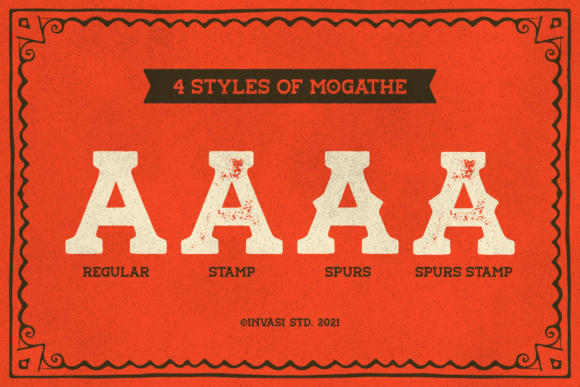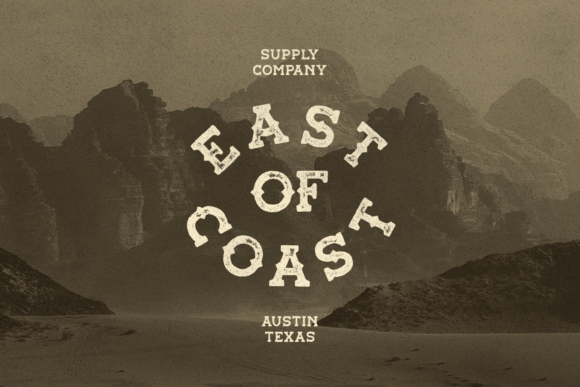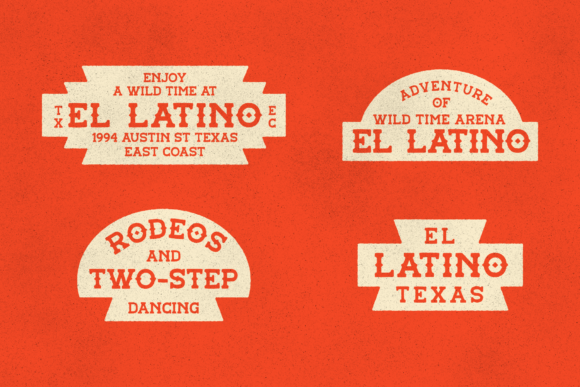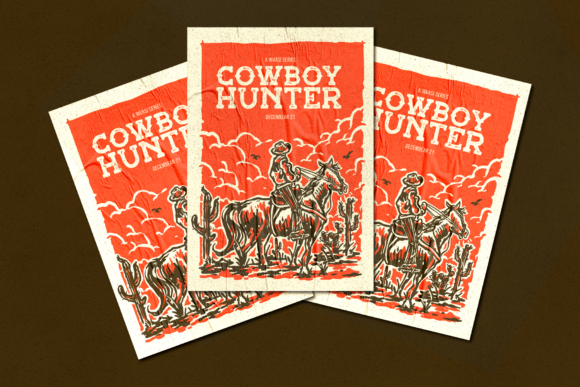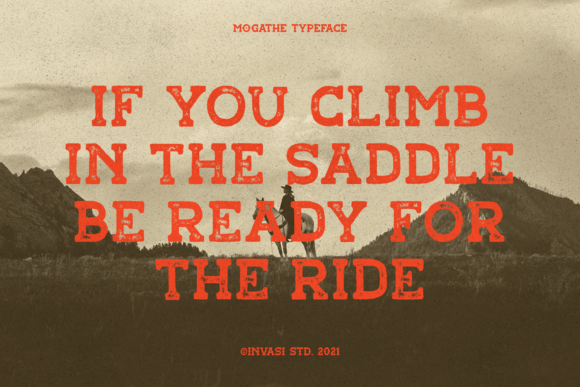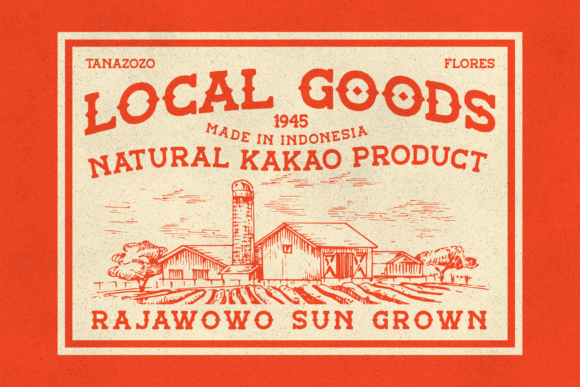
Introduction to Mogathe Font
Have you ever stumbled upon a dusty old book in a thrift store, and as you flip through its yellowed pages, you’re transported to a bygone era? That’s exactly the feeling you’ll get when you add the Mogathe Font to your design project.
This western slab serif font is a masterclass in evoking the spirit of the Wild West. Its vintage look and feel will transport your audience to a time of cowboys, outlaws, and rugged individualism. With its high-quality design, you can trust that the Mogathe Font will be a valuable addition to any creative project.
Key Features of Mogathe Font
- High-quality font designed for creative projects, perfect for designers looking for a unique design resource.
- Unique, modern design aesthetic, making it an excellent addition to any creative project.
Honest Review: Mogathe Font
I recently had the chance to work with the Mogathe Font and I must say it’s a fantastic addition to any designer’s toolkit. As a high-quality font, it’s perfect for creative projects that require a unique touch.
- ✨ High-quality design: The Mogathe Font boasts a crisp and clean design that makes it perfect for both digital and print projects.
However, I did notice a few limitations ⚠️:
- ⚠️ Limited character set: The font only includes a basic character set, which may limit its use in certain creative projects.
- ⚠️ Not ideal for small text: Due to its elegant design, the Mogathe Font may not be the best choice for small text or body copy.
Overall, I’m impressed with the Mogathe Font and would definitely recommend it as a design resource for any creative project. While it may have some limitations, its high-quality design and free download make it a great addition to any designer’s toolkit.
Mogathe Font
Tips for Getting the Most Out of Mogathe Font
For the best results, use the Mogathe Font in a high-quality design project. You can also experiment with different font sizes and styles to create a unique and creative design.
The Mogathe Font is ideal for various creative projects, including graphic design, digital art, and branding. It’s also a great resource for designers who want a free, high-quality font for their designs.
Alternatives to Mogathe Font
Alex Brush is a beautiful, handwritten font that’s ideal for designers working on projects that require a personal touch. It’s perfect for creating invitations, posters, or any other material where a handwritten feel is desired. Alex Brush is available for free download and features a transparent background, making it easy to use in various design scenarios. When compared to Mogathe Font, Alex Brush offers a more whimsical and artistic look.